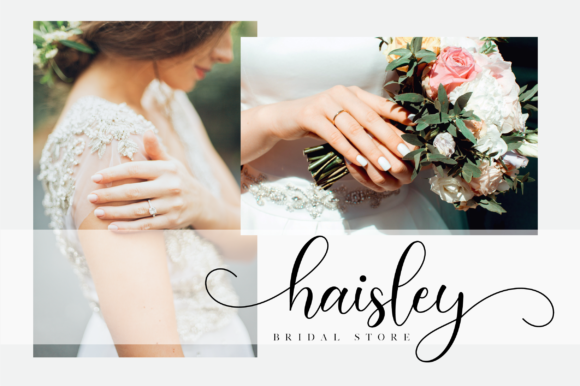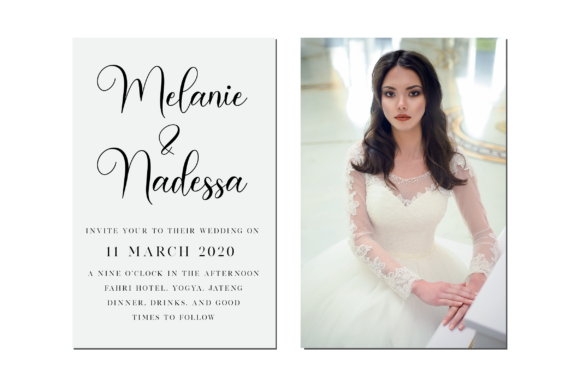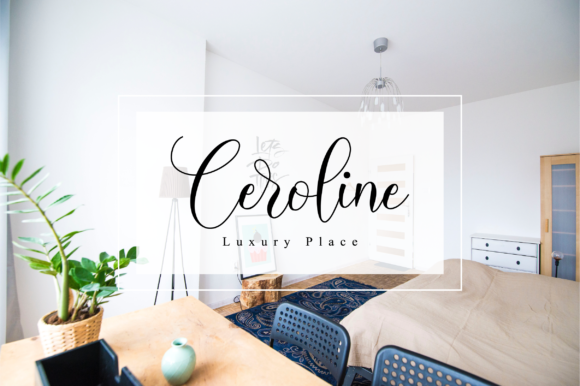
Introduction to Endenesilia Font
Do you remember the moment when you finally found the perfect design element for your creative project? The one that made everything fall into place and added that extra oomph? For many designers, that moment is what makes all the hard work worth it. And today, we’re excited to introduce you to the stunning Endenesilia Font, a game-changer for your next design project.
With its enchanting and modern feel, the Endenesilia Font is a versatile script font that’s perfect for adding a touch of romance to your next craft. Whether you’re working on a greeting card, a headline, or a special project, this font is sure to impress. And the best part? It’s PUA encoded, making it easy to access all the beautiful glyphs and swashes with just a few clicks.
As a valuable resource for designers, the Endenesilia Font offers a wealth of special features, including alternate glyphs and ligatures. Plus, with a transparent background, you can easily integrate it into your design without any distractions. And the best part? You can download it for free, making it an absolute must-have for any design enthusiast.
Key Features of Endenesilia Font
- Endenesilia Font is a high-quality design resource ideal for creative projects requiring a unique touch.
- Endenesilia Font is available in a single weight, providing a clean and minimalist aesthetic for creative projects.
- Its unique characteristics make it an excellent choice for designers seeking a distinctive and eye-catching design element.
Honest Review: Endenesilia Font
I recently had the chance to work with the Endenesilia Font, and I must say, it’s a unique and interesting design resource. The font’s creative project approach is evident in its elegant and modern aesthetic.
- ⚠️ The font’s limited character set may not be suitable for extensive typing or formal documents.
- ⚠️ Some users may find the font’s unique style challenging to read, especially at smaller font sizes.
Overall, I think the Endenesilia Font is a great addition to any designer’s toolkit. Its creative project approach and high-quality files make it a valuable resource for designers working on modern and innovative projects. Just be aware of the limitations and use it judiciously.
The Endenesilia Font is ideal for various design projects, including:
- Print design
- Logo creation